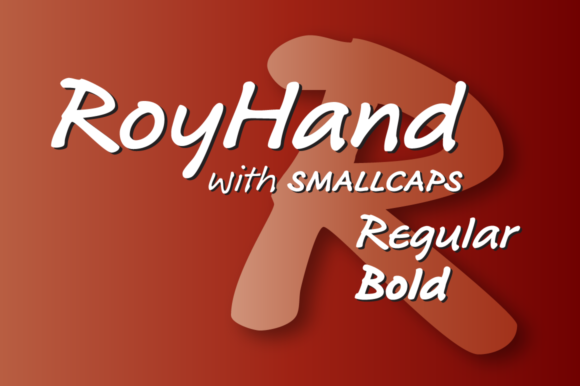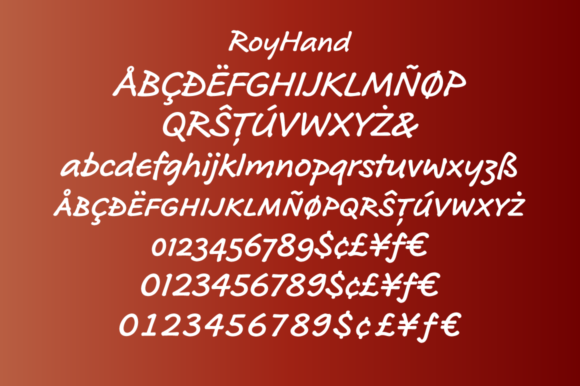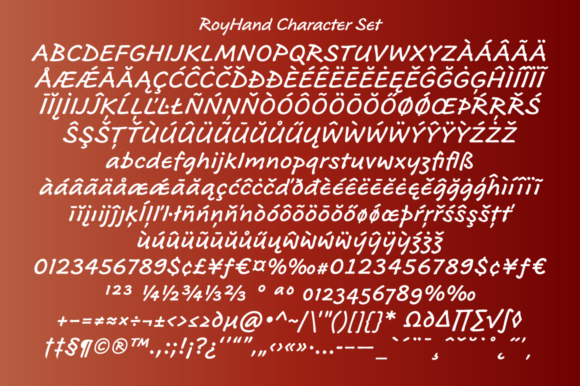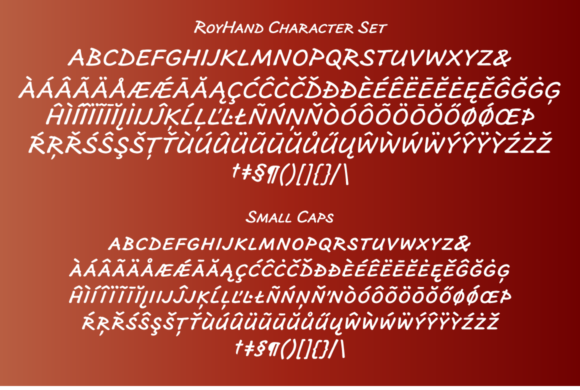
RoyHand Regular and Bold  Font
About RoyHand Regular and Bold  Font
RoyHand is a modern and beautiful handwritten font. It embodies playfulness and authenticity, and it will elevate the look of any lovely creation! This font is PUA encoded which means you can access all of the glyphs and swashes with ease!